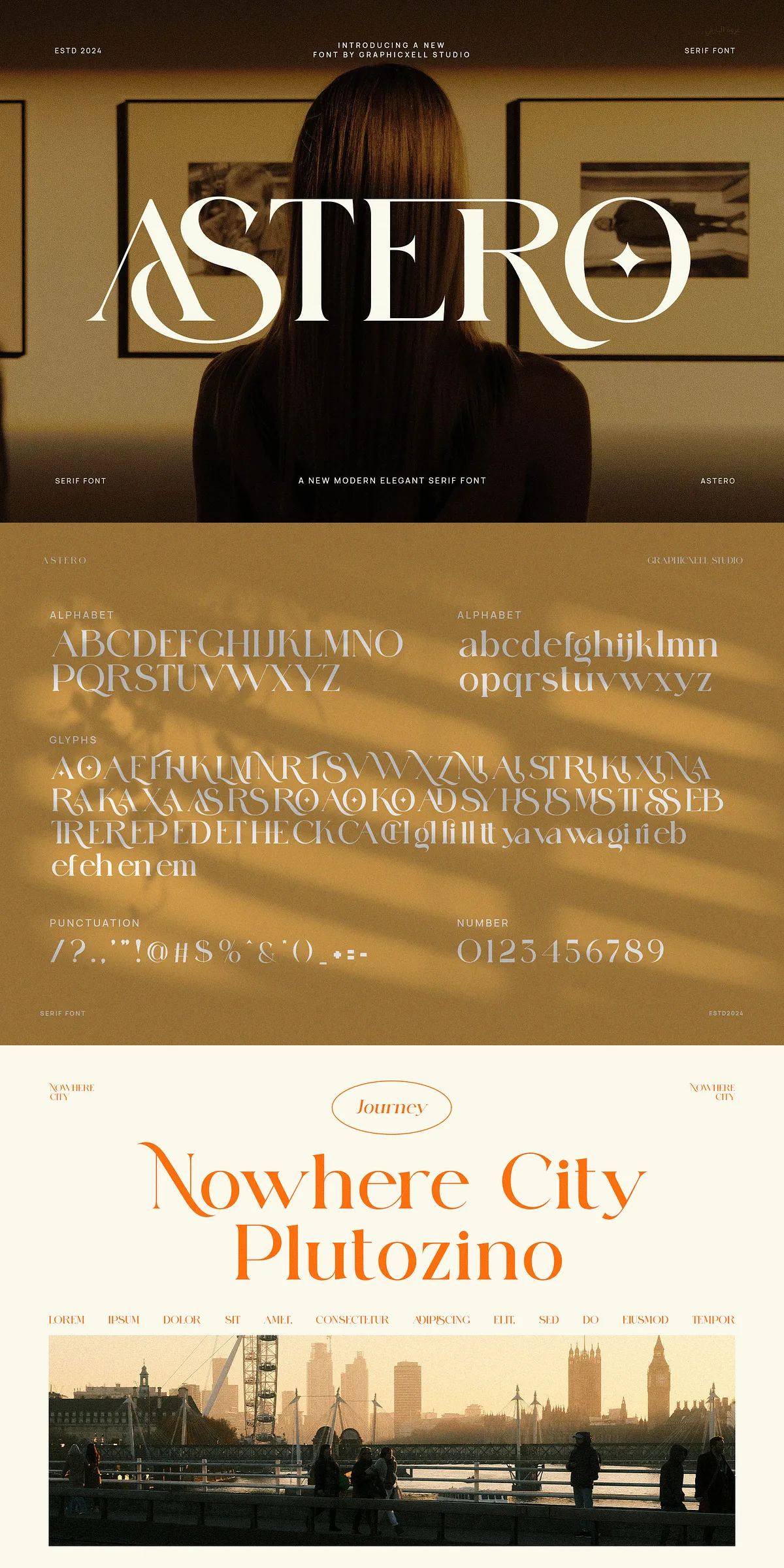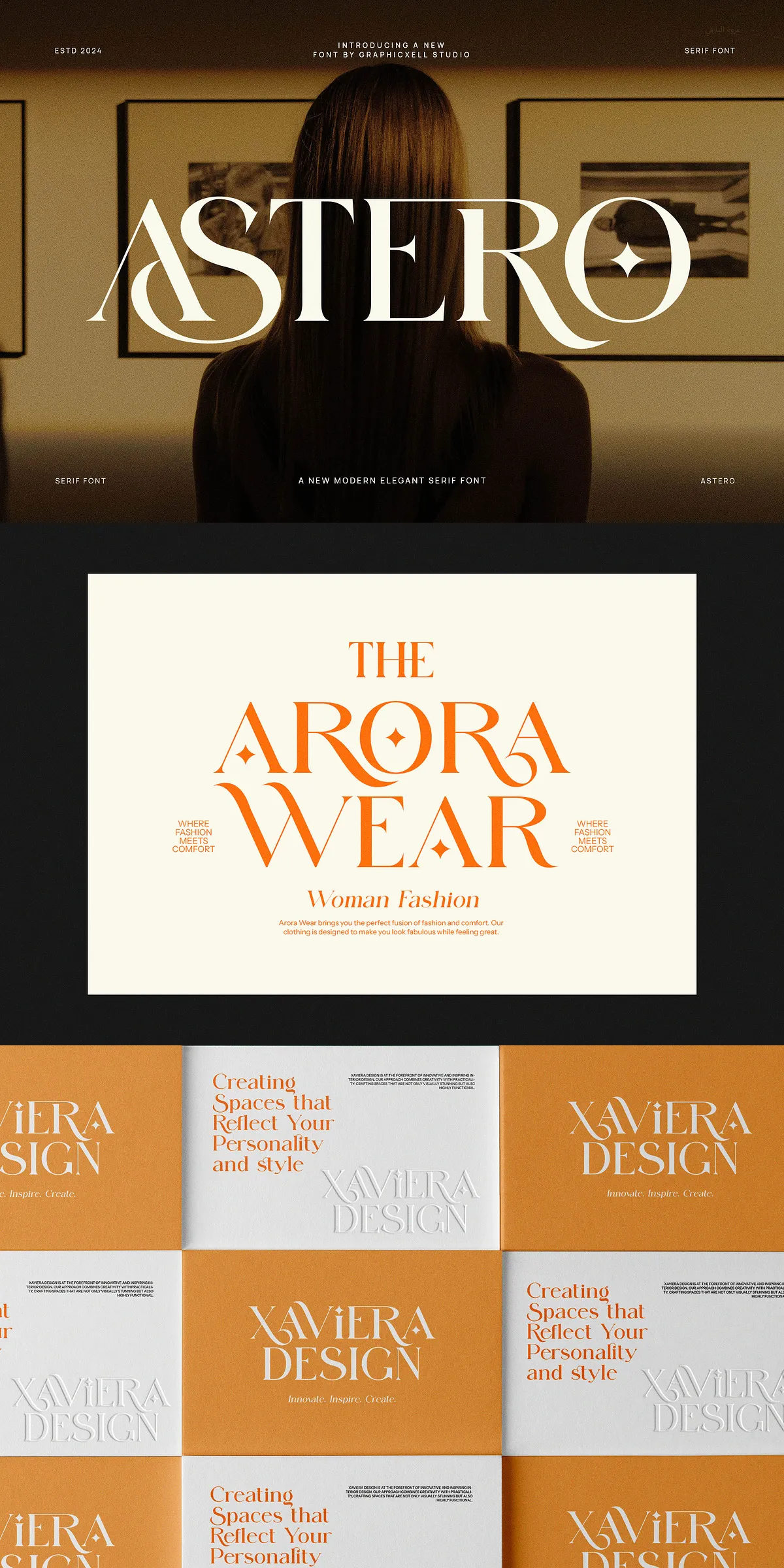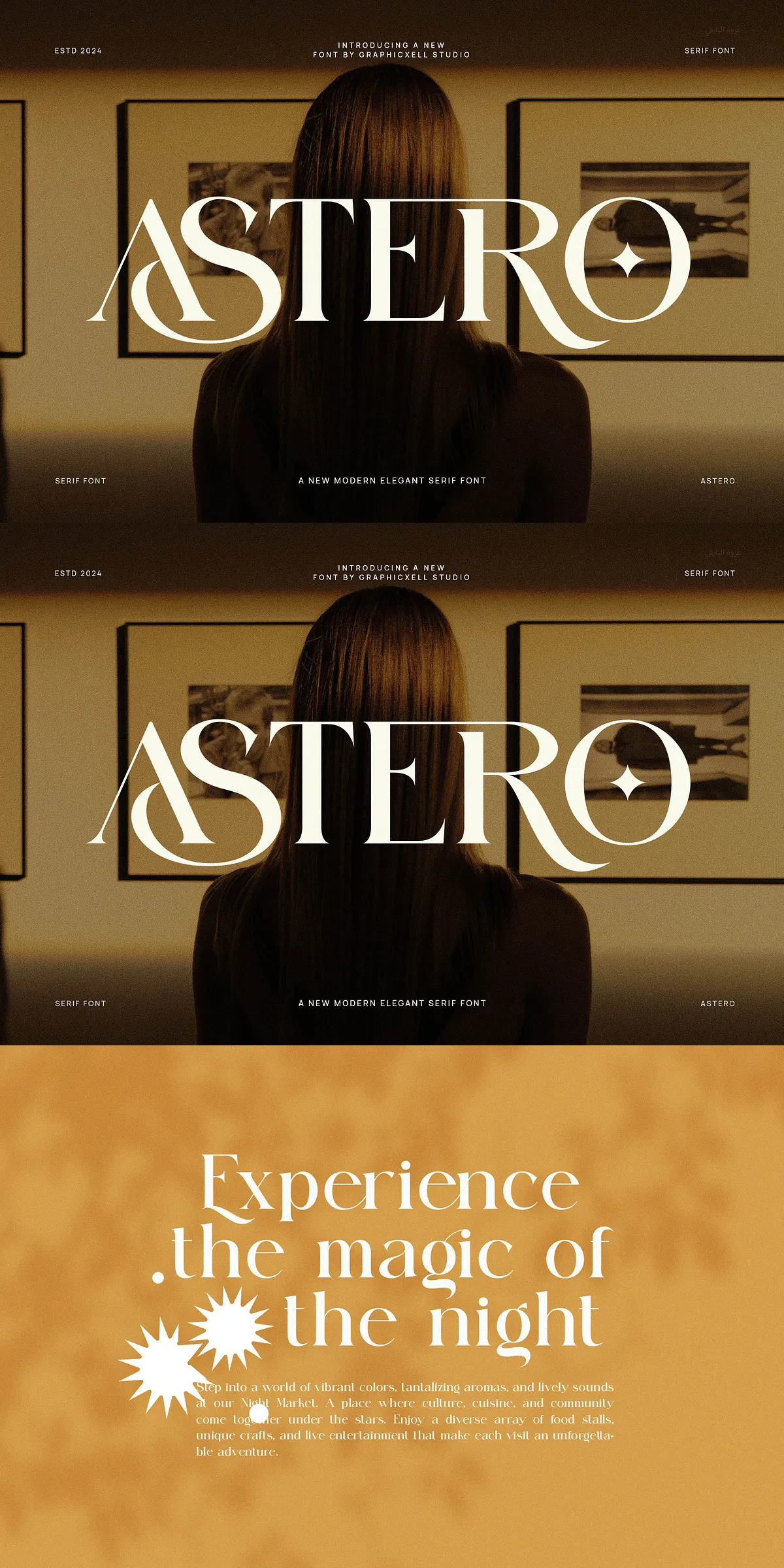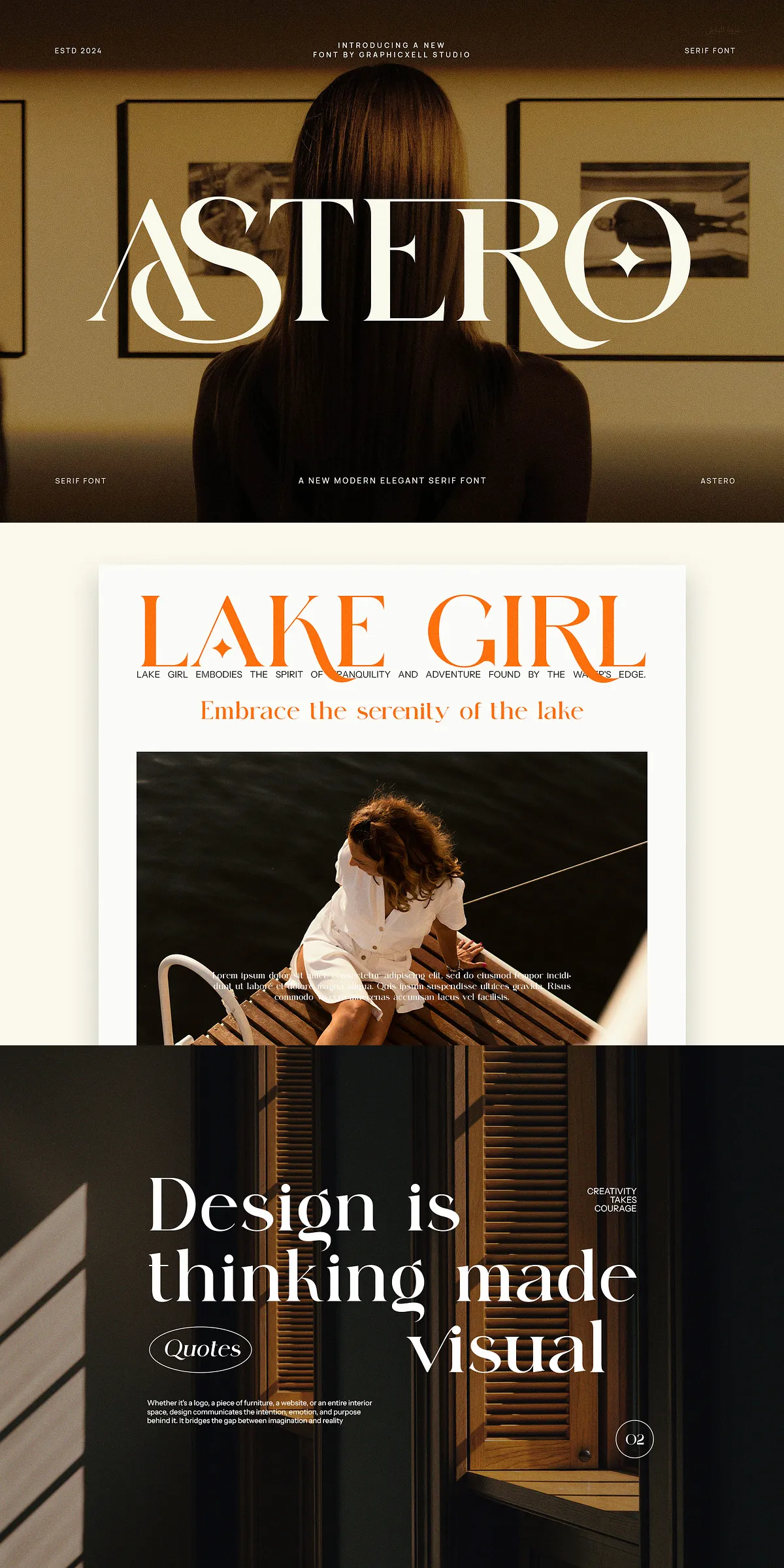
Astero Elegant Ligature Serif Font
Step into a new era of typographic distinction with Astero Elegant Serif Font — not just another serif typeface, but a visual revolution. While countless fonts strive to fit in, Astero chooses to stand out. It’s the bold, distinctive choice for designers who refuse to blend into the background. With its sharp-edged character, dramatic thick-thin contrast, and truly anti-mainstream ligatures, Astero doesn’t follow trends — it defines them.
Unmatched Visual Identity: Where Eccentricity Meets Elegance
From the moment you lay eyes on it, Astero commands recognition. Its deliberate, almost architectural precision — every sharp angle and dynamic stroke — is intentional. This isn’t randomness; it’s bold design philosophy. The interplay of thick and thin strokes creates a powerful rhythm that draws the eye, making your text not just readable, but unforgettable.
Celebrating the Unconventional: Signature Ligatures That Turn Heads
What truly sets Astero apart? Its unique ligatures. Unlike conventional or predictable glyph combinations, Astero features daring, one-of-a-kind ligatures that feel both modern and vintage — a rare fusion that captures attention instantly. These aren’t just decorative flourishes; they’re strategic design choices that elevate your project from ordinary to extraordinary.
Whether it’s an invitation, logo, or social media post, Astero ensures your message doesn’t just land — it leaves a lasting impression.
Designed for Versatility: From Branding to Product Design
Don’t let its bold personality fool you: Astero is powerfully adaptable. It’s engineered to deliver impact across a vast range of creative fields:
• Branding & Logo Design – Create a strong, distinctive identity that stands out in crowded markets.
• Product Packaging & Labels – Transform packaging into a premium visual experience that appeals to the senses.
• Wedding Invitations & Stationery – Add timeless elegance to formal events with a font that feels both luxurious and unique.
• Photography & Editorial Design – Use as titles, captions, or overlays for a high-end, editorial vibe.
• Advertising & Social Media Posts – Command attention in fast-scrolling feeds with bold, eye-catching typography.
• Watermarks & Brand Collateral – Add instant credibility and style to internal and external branding materials.
No matter your medium, Astero enhances your message with a rare combination of style and strength.
Crystal-Clear Readability with Maximum Impact
Some bold fonts sacrifice readability for flair. Not Astero. Despite its dramatic character, it maintains exceptional clarity at both large and small sizes. Whether used as a headline, logo text, or even a subtle watermark, Astero remains legible, refined, and professional.
This balance of creativity and functionality makes it ideal for high-stakes design projects where both aesthetic quality and communicative effectiveness matter.